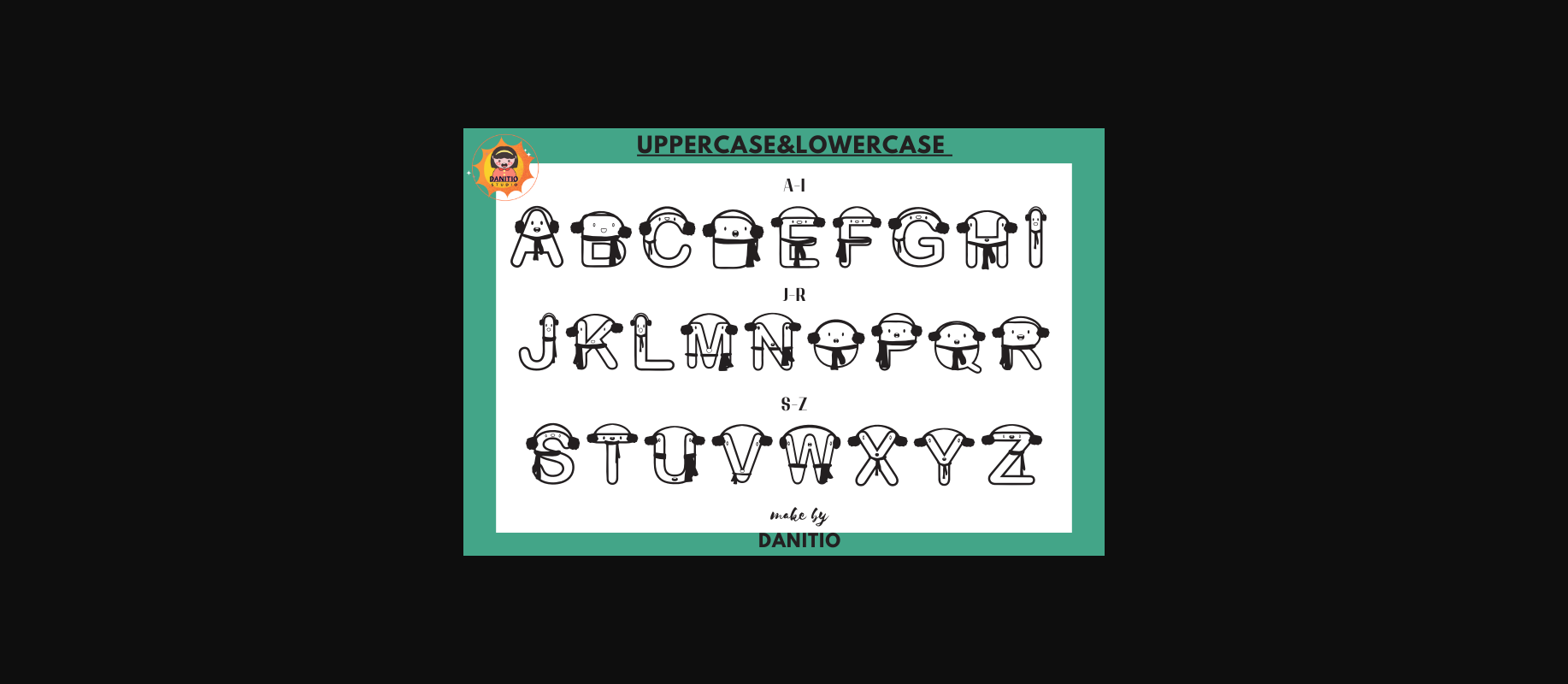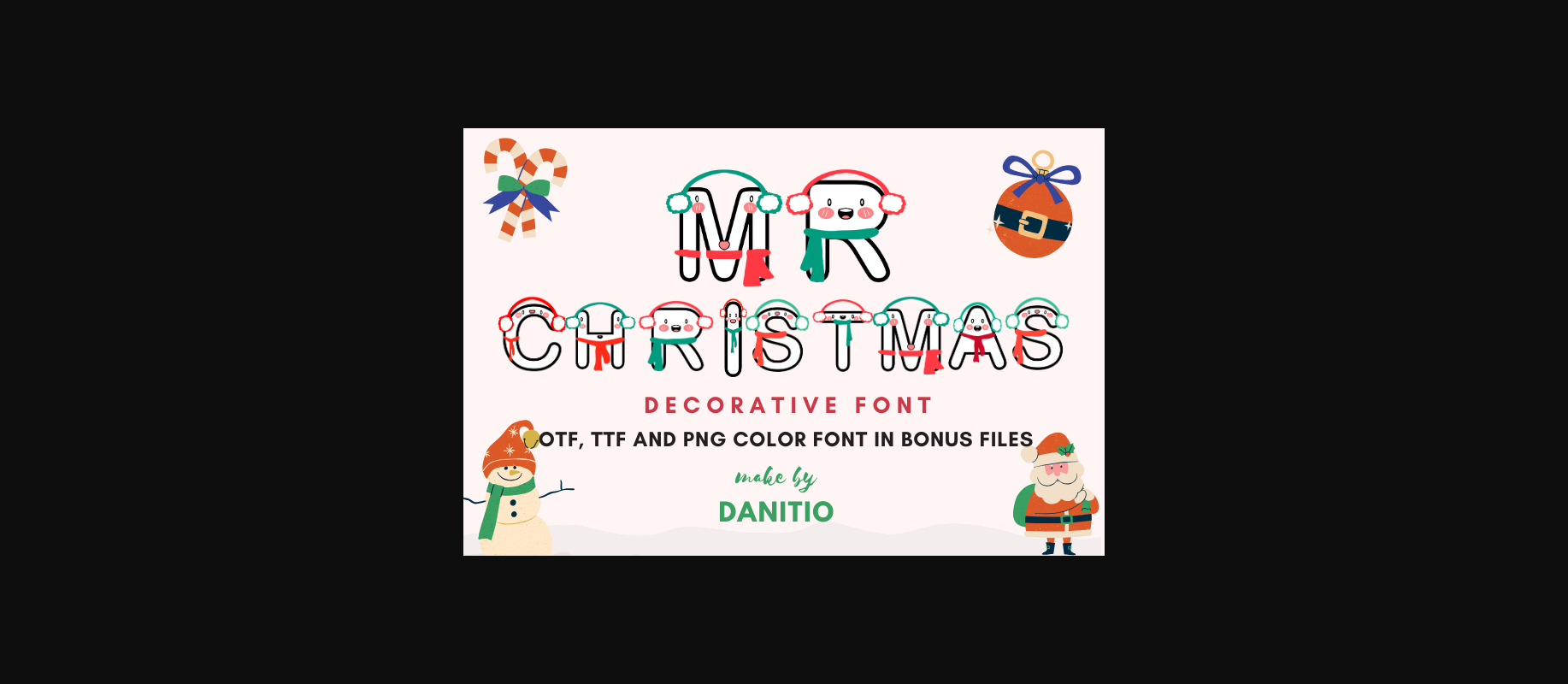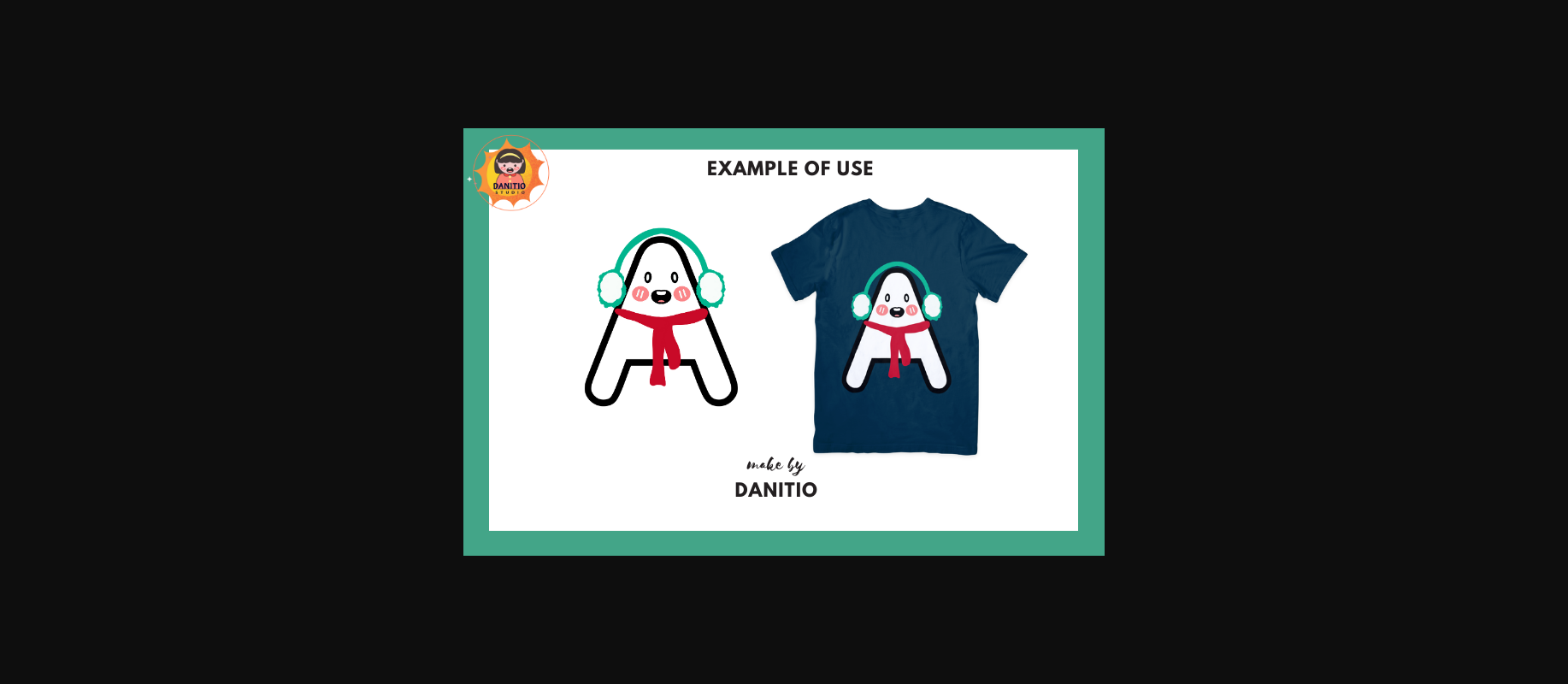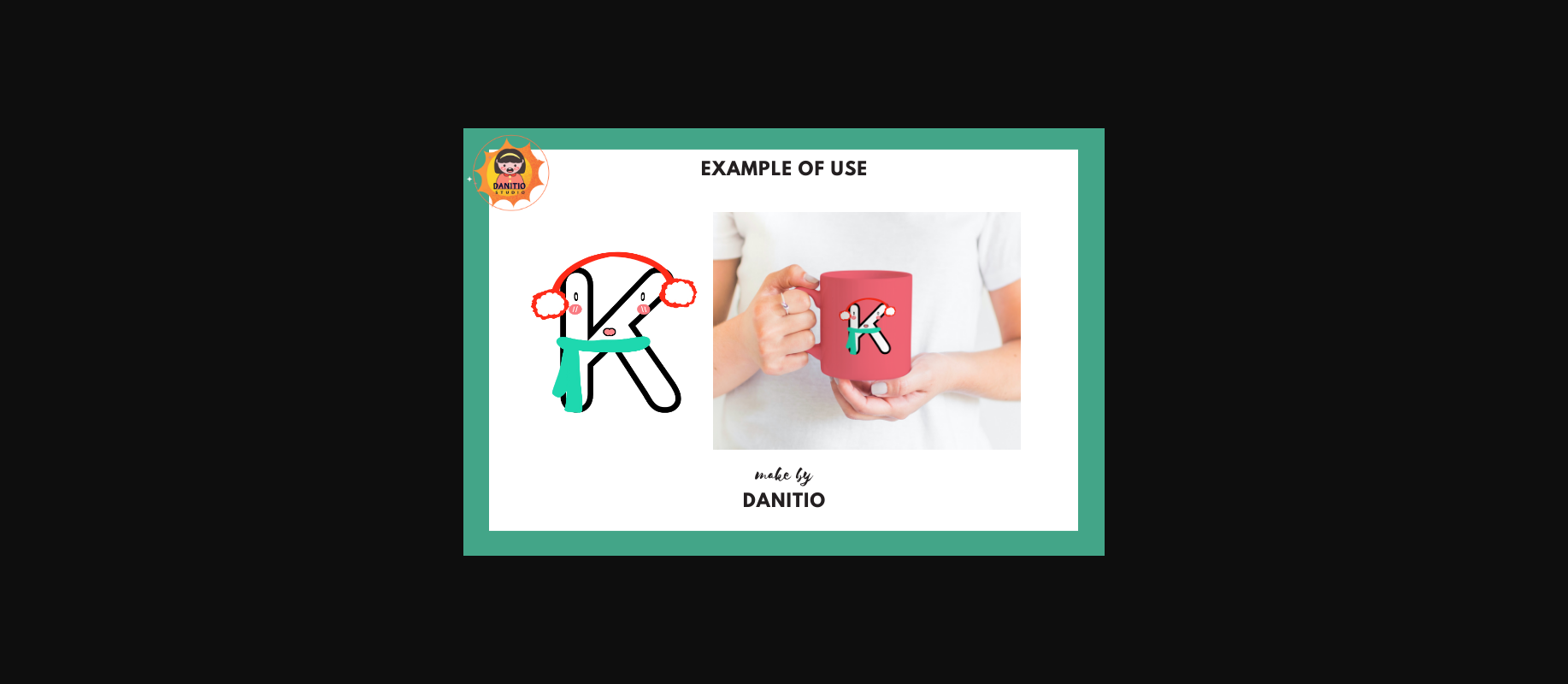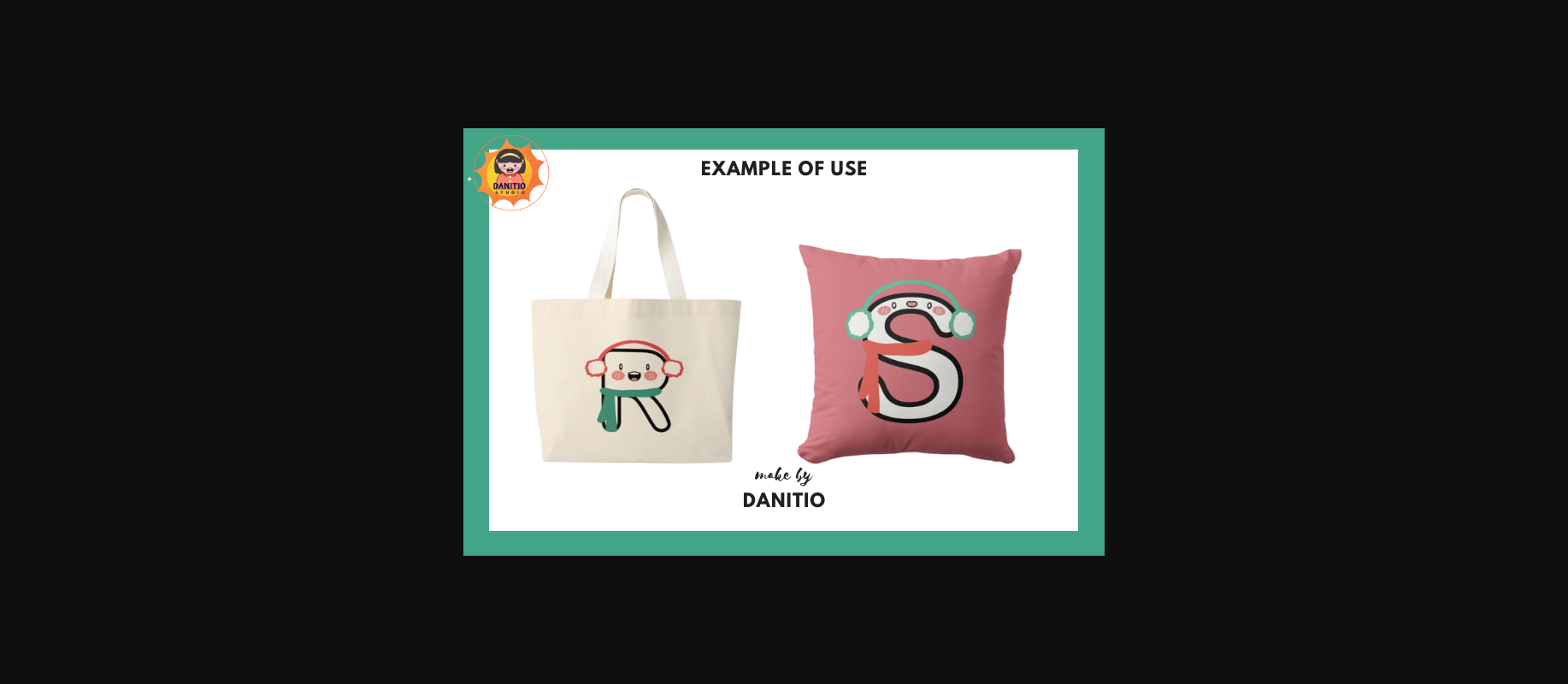
Mr.christmas Font
About Mr.christmas Font
Mr.Christmas is a cute decorative font perfect for the Christmas season. You can give your Christmas-themed project a fun and quirky atmosphere. Spread the joy of the season with this font. And let your creativity shine during this fun time of the year. Hope you enjoy my fonts.